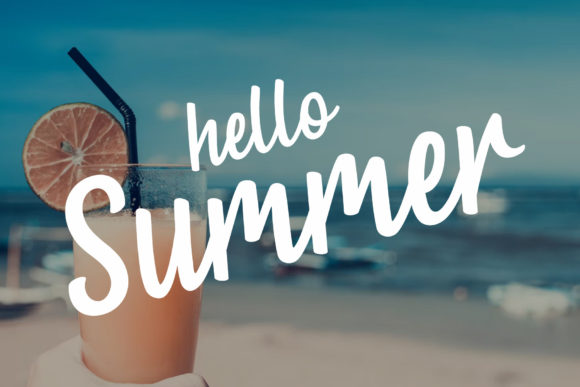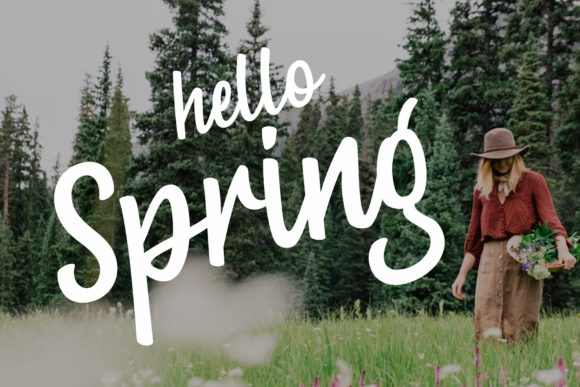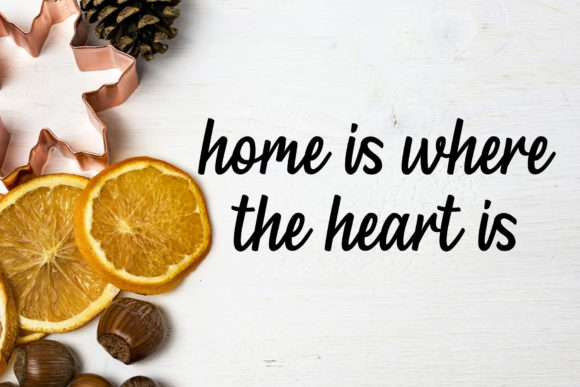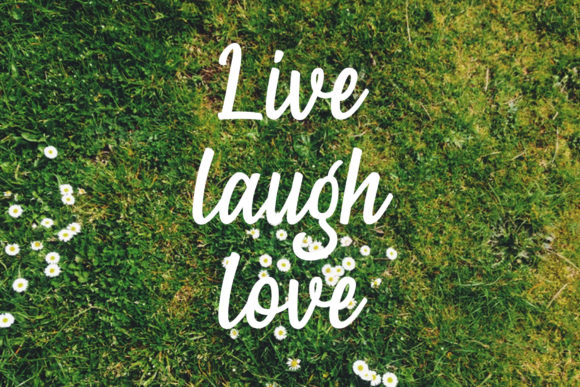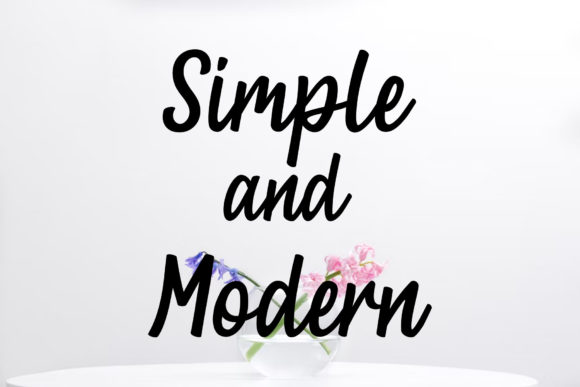
Introducing Hangout Font: The Perfect Handwritten Script for Modern Design
In the world of digital design, fonts play a crucial role in creating a lasting impression. A well-chosen font can elevate your brand’s visual identity and make it stand out from the crowd. If you’re looking for a font that exudes modernity and sophistication, look no further than Hangout Font. This beautiful handwritten script font is designed to give your designs a fresh and contemporary look that’s perfect for digital branding, crafting, and more.
What Makes Hangout Font Special?
Hangout Font boasts an authentic modern handwritten look that’s both elegant and approachable. Its unique charm makes it an excellent choice for a wide range of design applications, from logos and social media graphics to wedding decor, invitations, and website headers. The font’s versatility is one of its standout features, allowing designers and crafters to use it across various platforms and mediums.
Key Features of Hangout Font
- Handwritten Script: Hangout Font is a carefully crafted handwritten script font that mimics the look of modern handwriting.
- Modern Look: The font’s contemporary design makes it perfect for digital branding, social media, and modern craft projects.
- Highly Versatile: Use Hangout Font for logos, business cards, invitations, websites, blogs, Instagram graphics, and more.
Why Choose Hangout Font for Your Design Projects?
There are countless reasons why Hangout Font should be your go-to choice for design projects. Here are a few:
- Unique Identity: Hangout Font helps you create a unique visual identity for your brand or project, setting you apart from others.
- Easy to Read: The font’s clear and flowing script makes it easy to read, even at smaller sizes.
- Customization: With PUA encoding, you have access to numerous glyphs and ligatures, allowing for extensive customization of your text.
- Time-Saving: The font’s comprehensive character set and ligatures save you time when creating detailed and intricate designs.
How to Use Hangout Font in Your Designs
Integrating Hangout Font into your design workflow is straightforward. Here are some ideas to get you started:
- Branding and Logos: Create stunning logos and brand identities with Hangout Font’s unique and modern script.
- Digital and Print Invitations: Design beautiful invitations for weddings, parties, and events that stand out.
- Social Media Graphics: Elevate your social media presence with eye-catching graphics and posts.
- Web Design: Use Hangout Font for website headers, blog titles, and more to create a cohesive and engaging user experience.
- Crafting and DIY Projects: Add a personal touch to your crafting and DIY projects, such as handmade cards and decorations.
Tips for Maximizing Hangout Font’s Potential
To make the most out of Hangout Font, consider the following tips:
- Experiment with Ligatures: Take advantage of the font’s ligatures to add a natural, handwritten feel to your text.
- Play with Colors and Textures: Combine Hangout Font with various colors and textures to create visually appealing designs.
- Pair with Complementary Fonts: For added versatility, pair Hangout Font with other fonts to create stunning contrast and hierarchy in your designs.
| Font Name | Hangout Font |
| Author | Fontysia |
Hangout Font is more than just a font – it’s a design tool that can transform your digital branding, crafting, and design projects. Its modern handwritten look, combined with PUA encoding for easy access to glyphs and ligatures, makes it an indispensable asset for designers and crafters alike. Whether you’re creating logos, social media graphics, wedding decor, or simply looking to add a personal touch to your DIY projects, Hangout Font is the perfect choice. So why wait? Download Hangout Font today and take your designs to the next level!